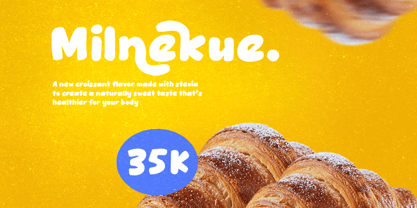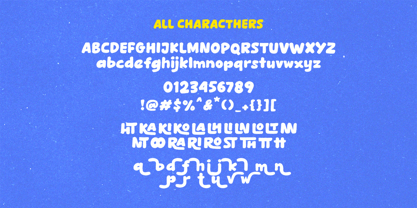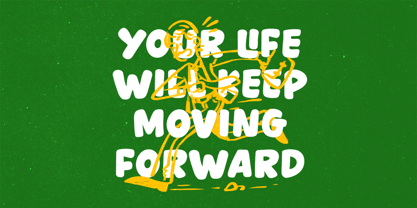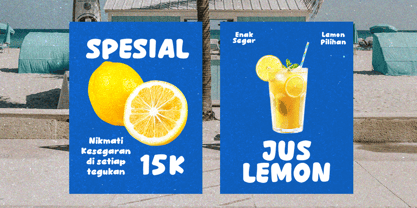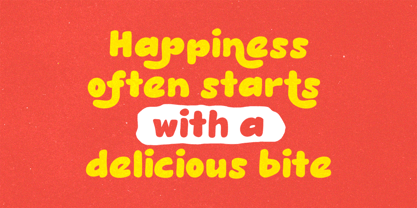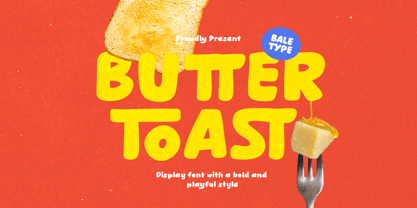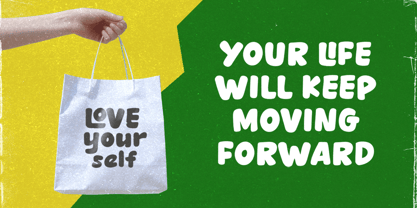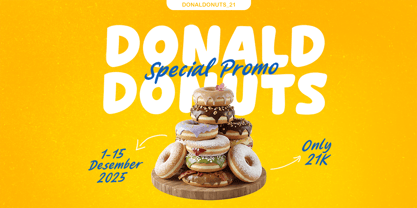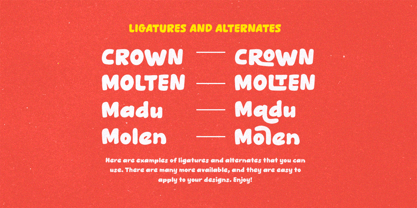
Butter Toast
by Bale Type
The Butter Toast Font Family was designed by Dzikrul Aulia and published by Bale Type. Butter Toast contains 1 styles.
Butter Toast is a bold hand-lettered font that brings a delicious, soft, and friendly vibe to any design. Its thick strokes and playful character give it a warm handmade feel, making it perfect for projects that need a fun and eye-catching style. Equipped with beautiful ligatures and stylish alternates, this font allows you to create more dynamic and natural lettering, helping your design stand out even more. Butter Toast works wonderfully for branding, logotypes, quotes, posters, packaging, and various creative projects that aim to look bold yet approachable. The overall look is expressive and modern while still maintaining the charm of authentic hand lettering. In addition, this font supports multiple languages, making it suitable for a wide range of international design needs.
Butter Toast